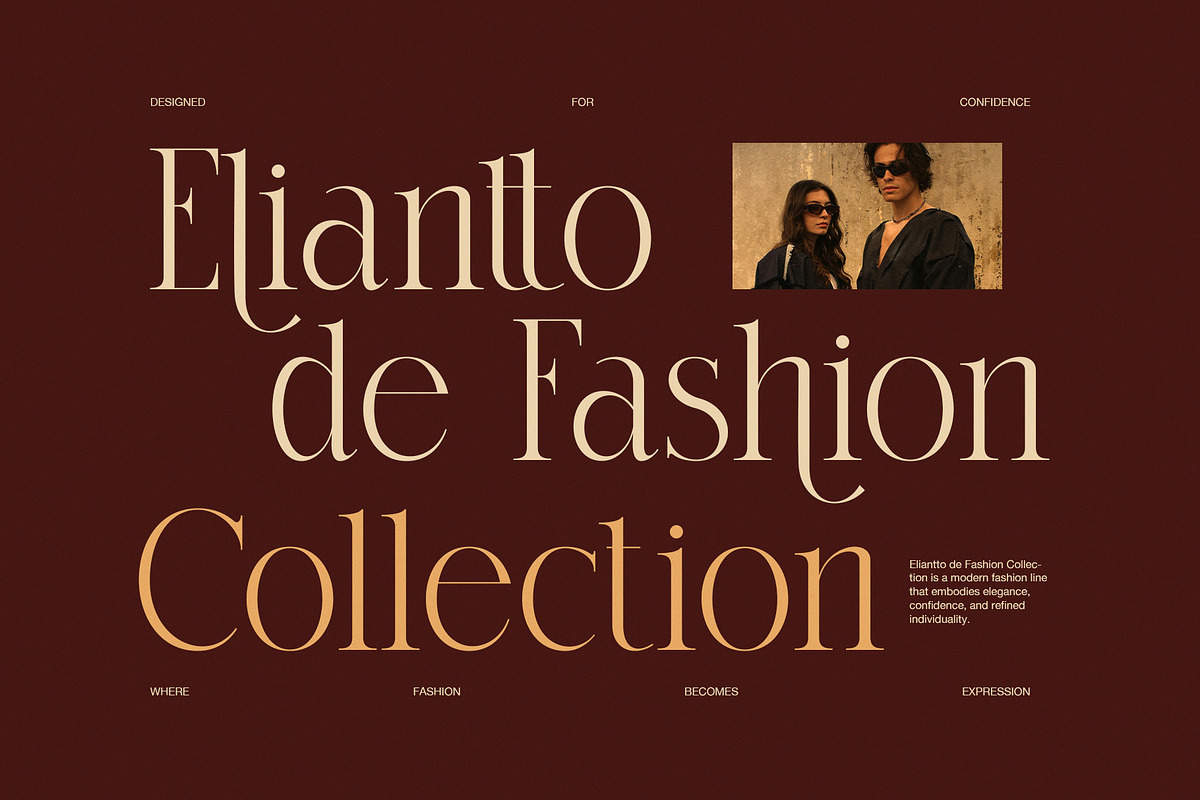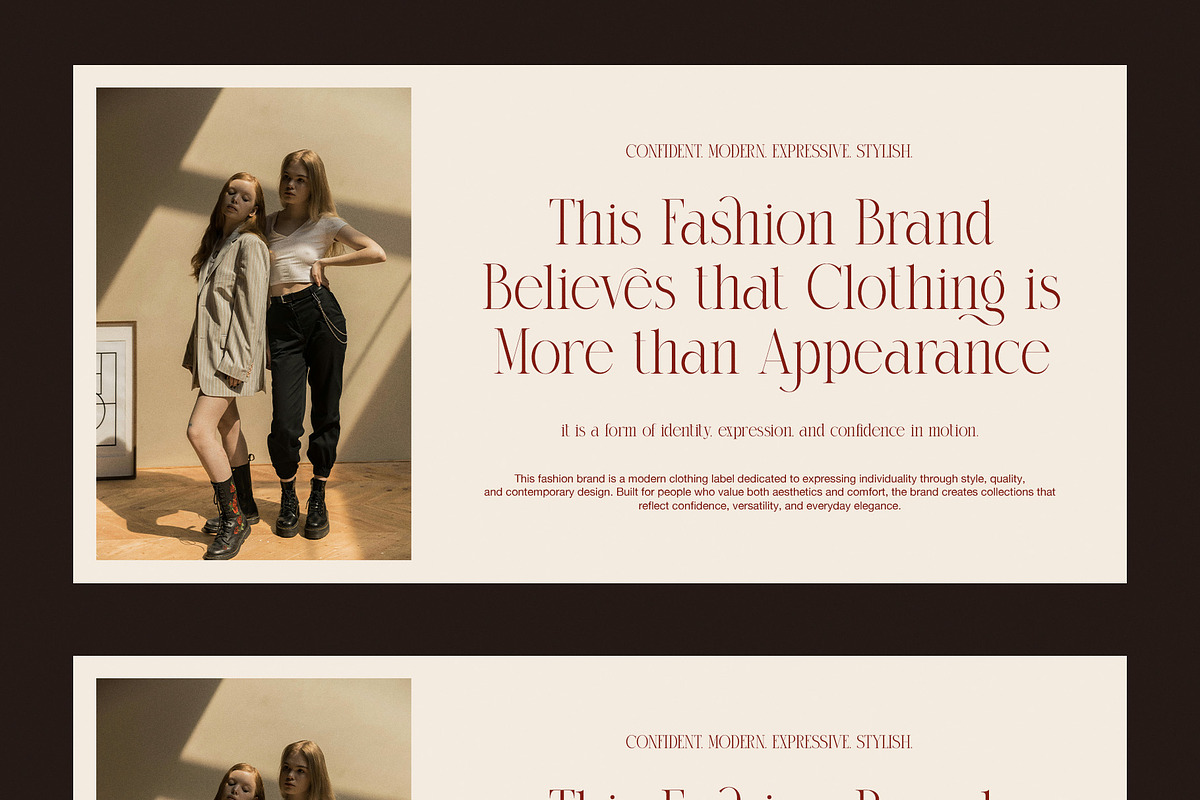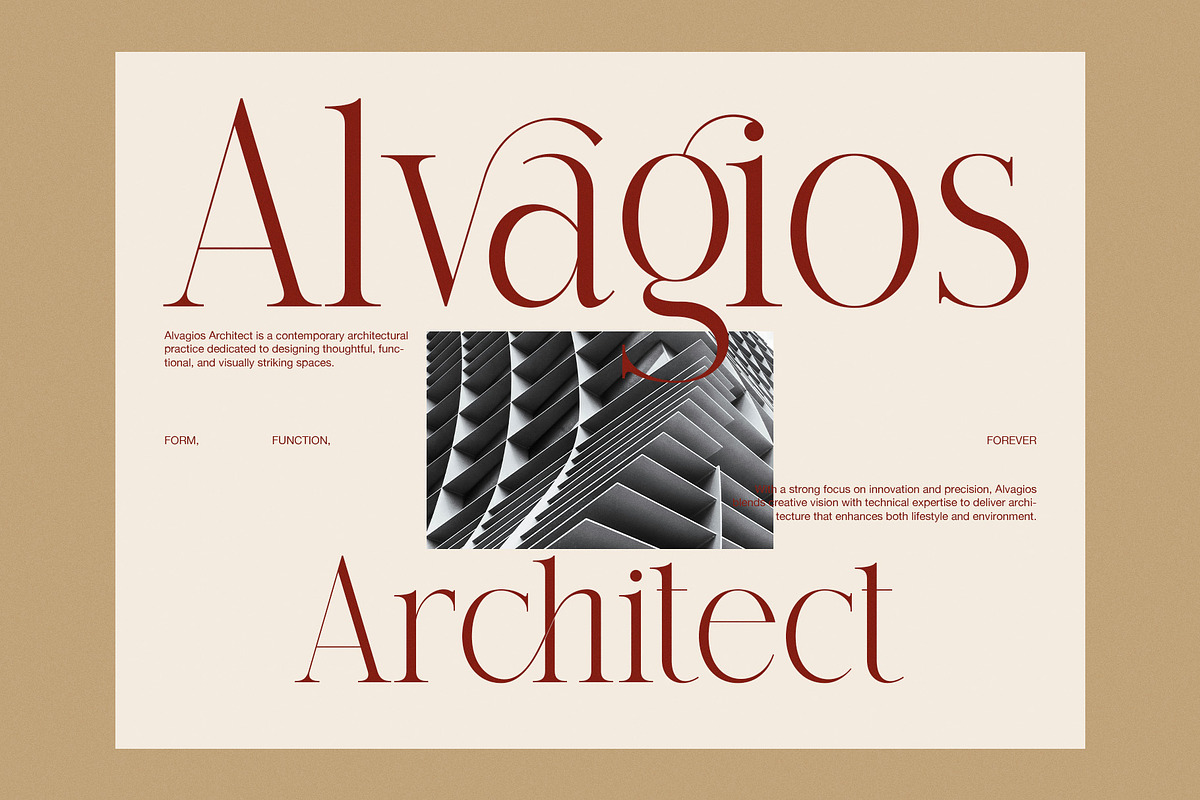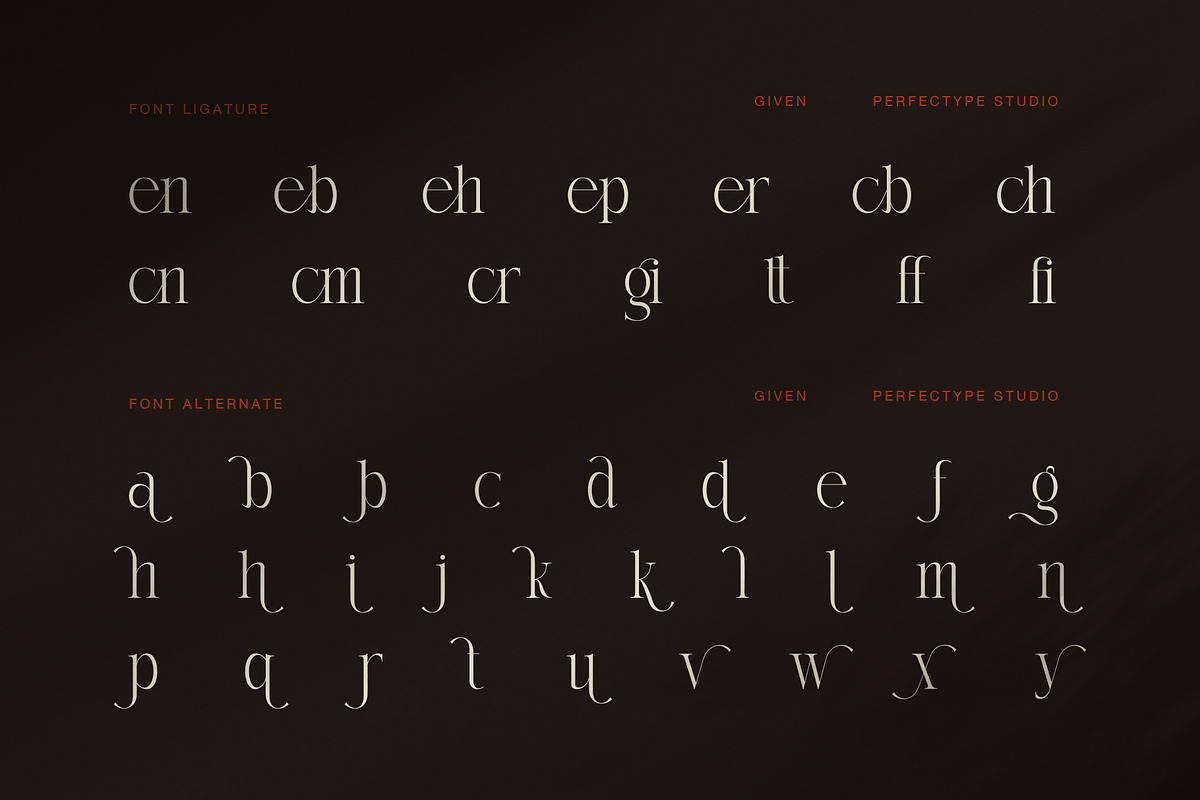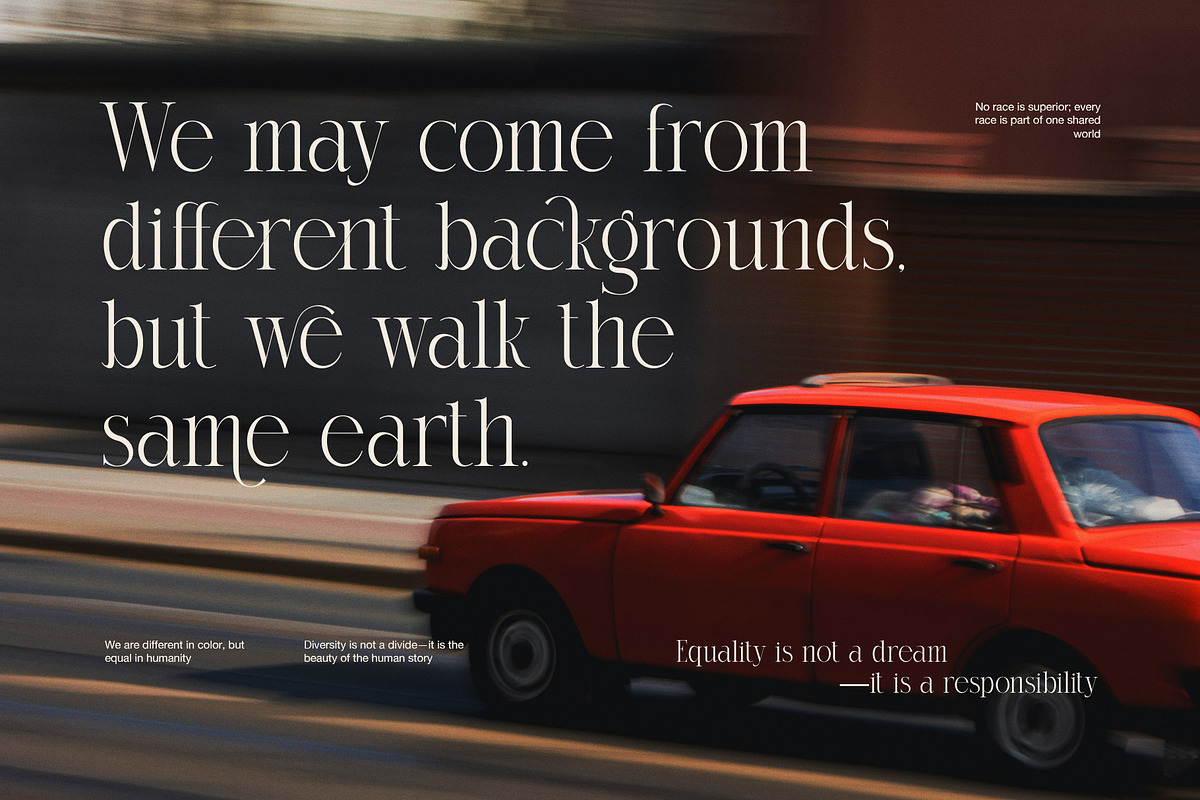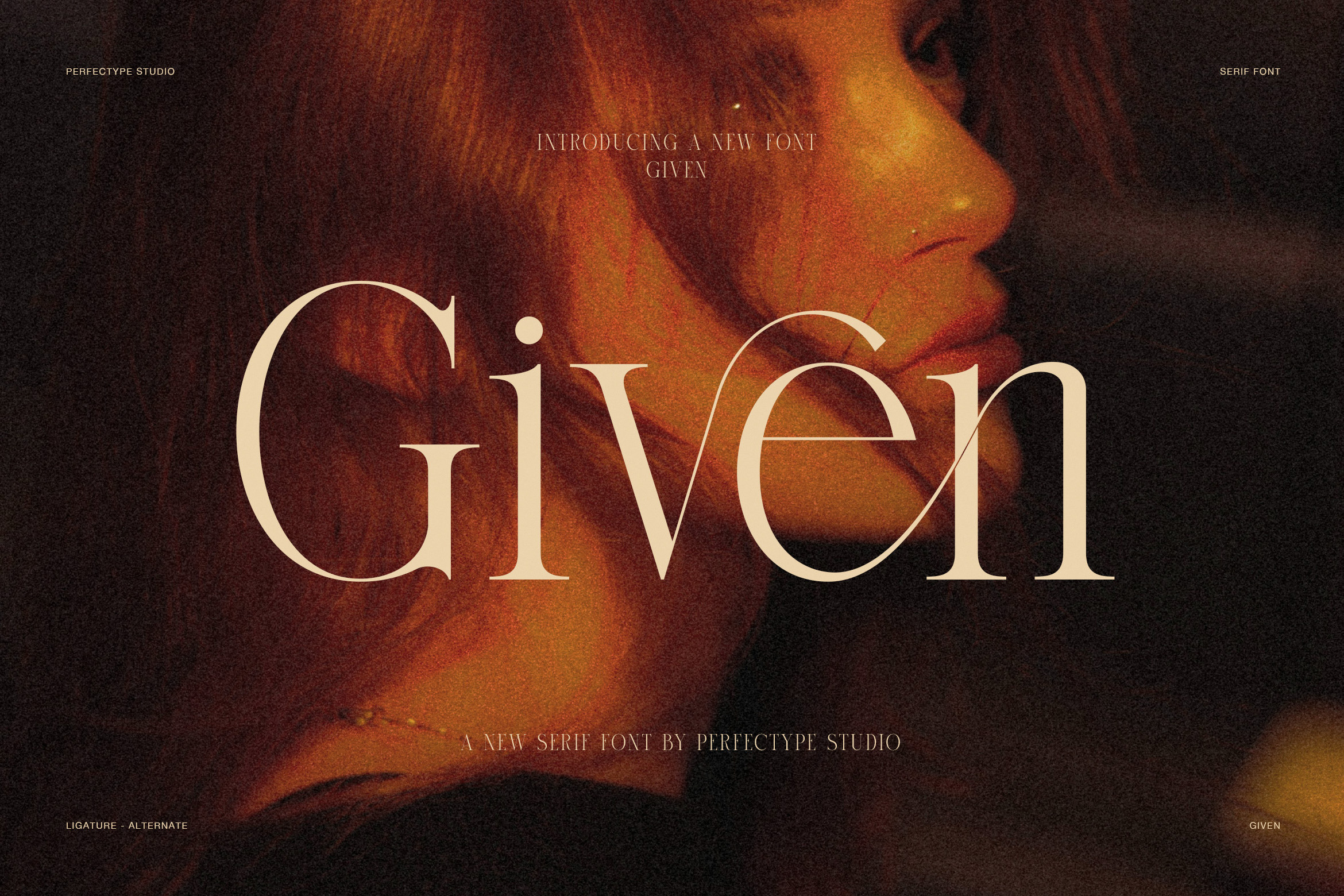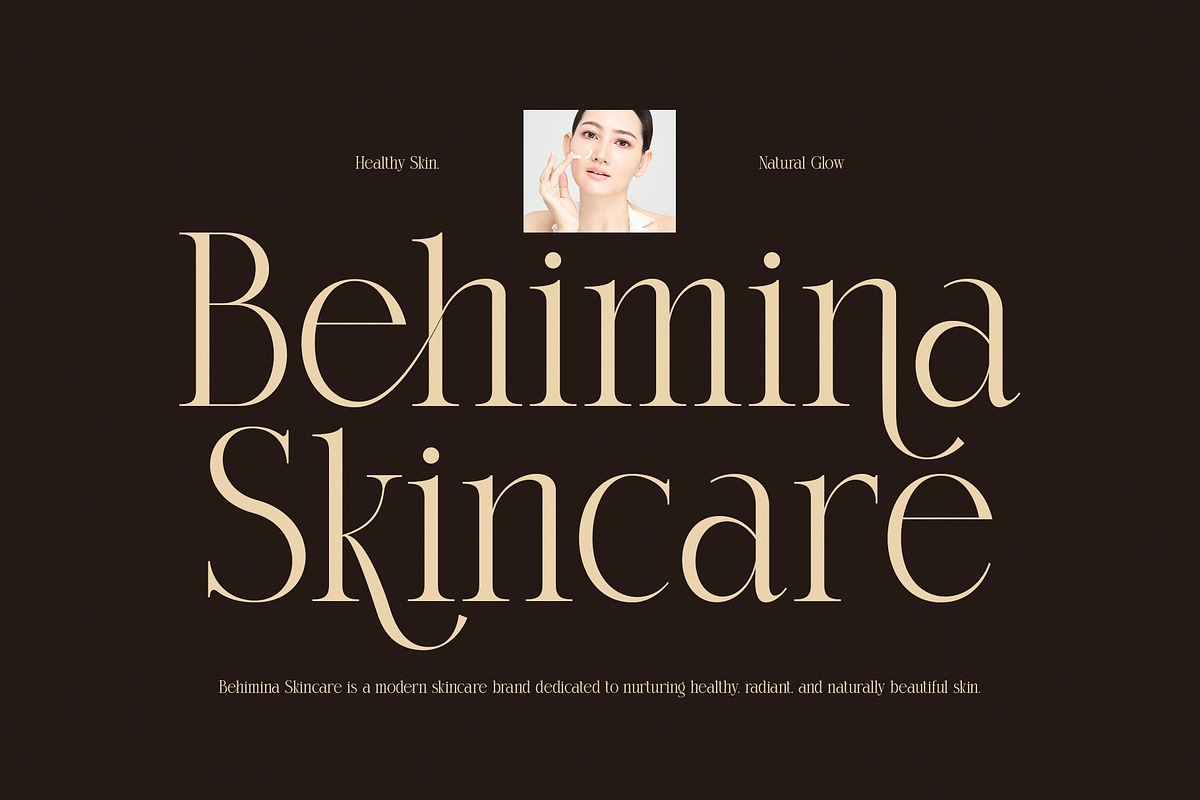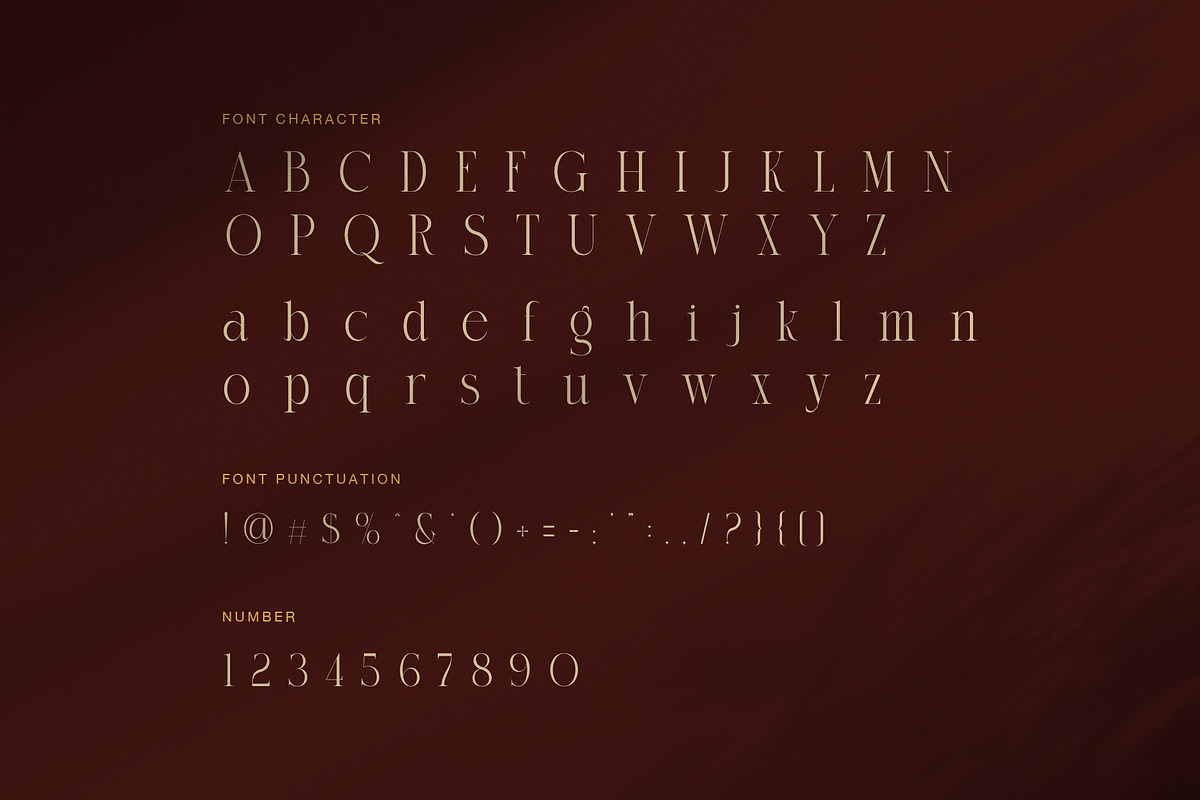
Given Elegant Serif Display Font
Given is an Elegant Serif Display Font that blends timeless sophistication with contemporary minimalism. Designed for designers, creative studios, and premium brands, this typeface delivers graceful letterforms, refined contrast, and stylish alternates that instantly elevate visual communication. Every character has been carefully crafted to create a luxurious appearance while maintaining excellent readability across both print and digital projects.
Unlike ordinary serif fonts, Given embraces a modern editorial style with delicate proportions, clean curves, and expressive details. As a result, every headline feels distinctive without becoming overwhelming. Furthermore, its elegant ligatures and alternate characters allow designers to build custom-looking typography effortlessly. Whether you are designing a luxury logo or a fashion campaign, the font adapts naturally to different creative directions.
Given is especially suitable for premium branding because it balances simplicity with personality. While many display fonts rely on excessive decoration, this typeface achieves elegance through precision, spacing, and refined serif construction. Consequently, every composition appears polished, confident, and memorable.
Moreover, Given performs beautifully across luxury industries where typography plays an important role. Fashion labels, skincare brands, jewelry collections, architecture studios, perfume packaging, editorial magazines, boutique hotels, and lifestyle businesses can all benefit from its sophisticated character. In addition, its balanced rhythm makes it ideal for magazine covers, advertising, product packaging, social media graphics, invitations, and high-end presentations.
Because branding requires flexibility, Given includes stylish ligatures and alternate glyphs that provide greater creative freedom. Designers can create elegant wordmarks, premium headlines, and unique brand identities without sacrificing readability. Therefore, every project feels more exclusive and professionally crafted.
Luxury branding
Fashion logos
Editorial design
Magazine headlines
Beauty branding
Skincare packaging
Jewelry collections
Perfume labels
Architecture studios
Interior design
Boutique branding
Wedding stationery
Product packaging
Luxury advertising
Premium social media graphics
Additionally, Given works equally well for both large display text and medium-sized typography. Its refined structure ensures consistency across every application, while the elegant details create lasting visual impact. As a result, brands can maintain a premium image across print, web, and digital platforms.
Whether you are creating a modern fashion identity, designing elegant packaging, or developing an editorial masterpiece, Given offers timeless beauty with contemporary precision. Its graceful serif forms, luxurious proportions, stylish alternates, and refined ligatures make it an excellent choice for designers who value elegance, versatility, and unforgettable typography.